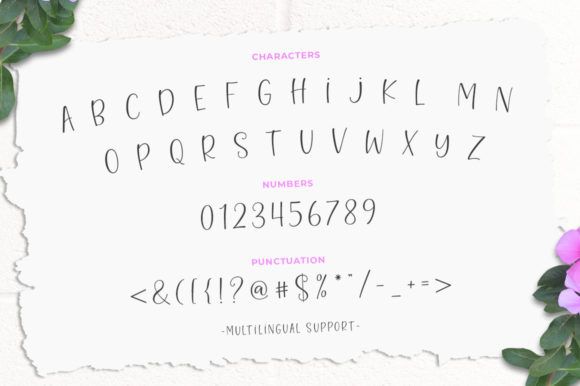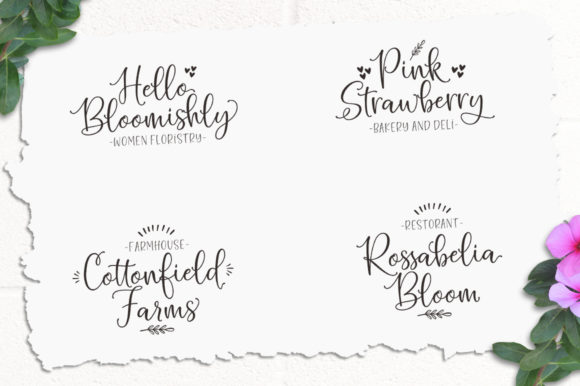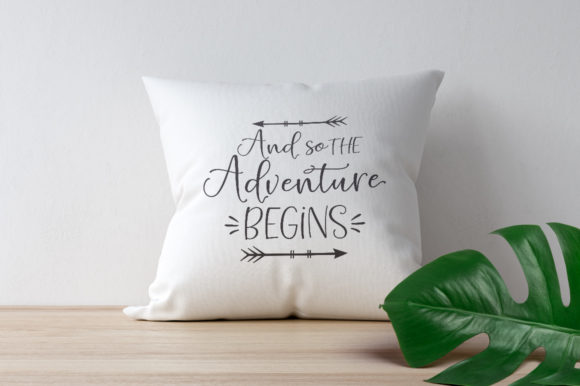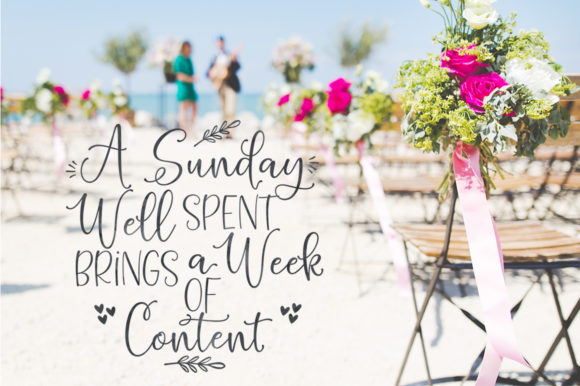
About Hello Blushberry Duo Font
The Hello Blushberry is a playful script font. It contains many alternative characters to choose from as well as natural ligatures which bring an authentic touch. A collection of strange and initial swash tips is also included to add finishing touches or fill the space in your designs.
Designed to work harmoniously, this duo consists of a super fine and casual signature script and a complete and clean set of all sans serif letters. The sans serif font consists of two outlined fonts of different weights and a regular version. Layer them with different colors and turbidity to get a million different views.